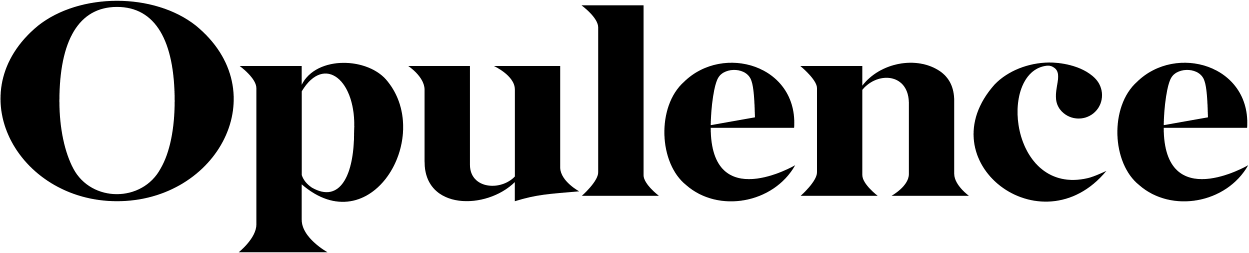
Opulence Font
If you are a novice graphic designer and need a to enhance the quality of your work to turn your audience into loyal customers, Opulence can be ideal for you.
This font conveys a sense of confidence, respect, and credibility to the audience, which makes it suitable for a wide range of graphic tasks such as designing flyers, logos, writing invitations, and gift cards.